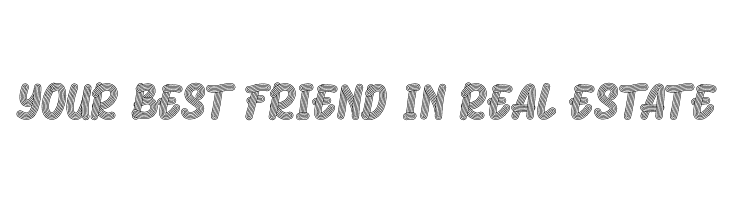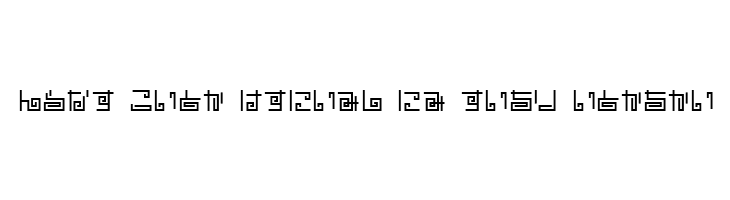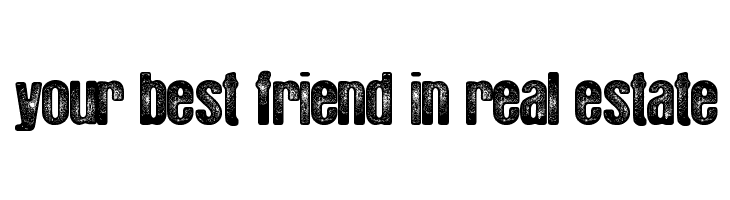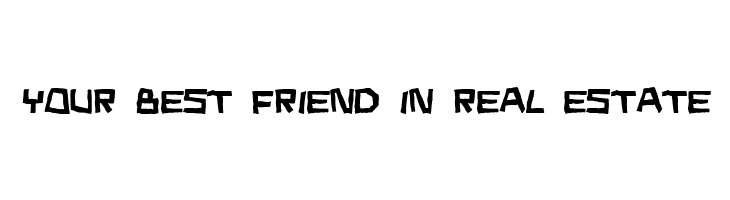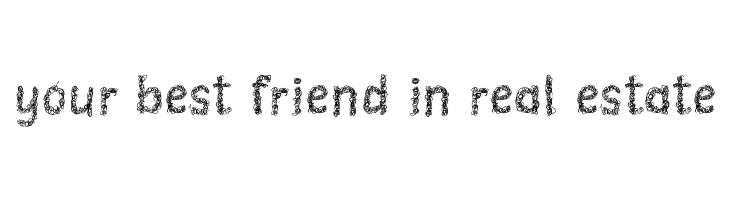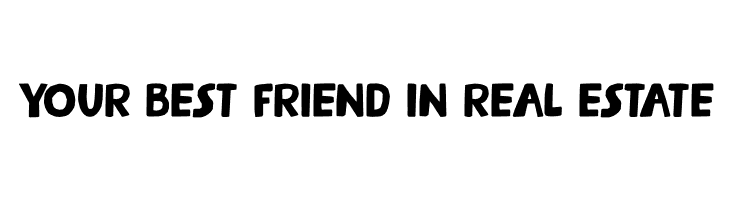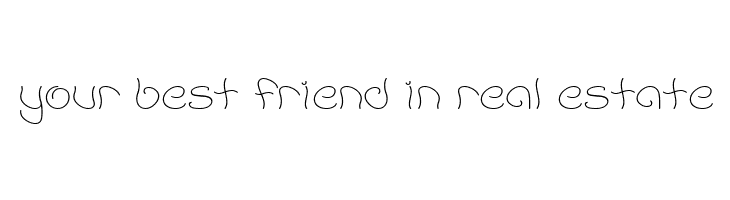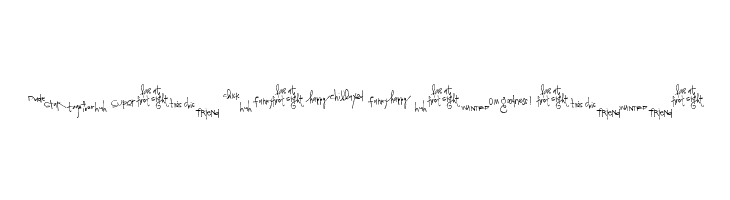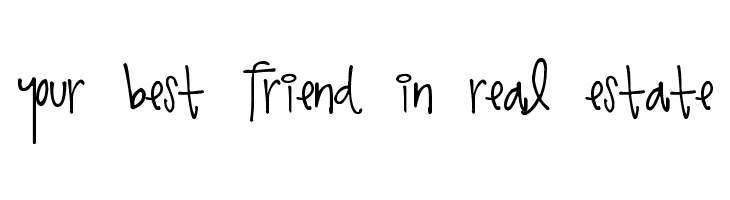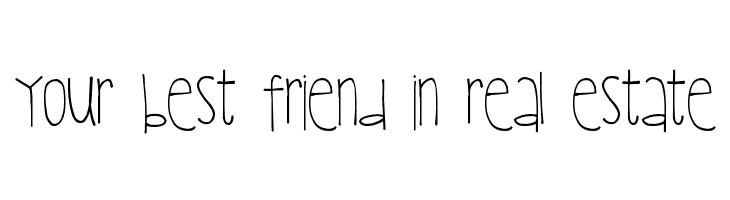
A playful, curly font with noodle-like strokes and a whimsical appearance.
A playful, noodle-inspired font with bold, intertwined strokes and a decorative style.
A geometric, maze-like font with a futuristic, digital aesthetic.
A playful, bold font with irregular, cartoonish shapes and a whimsical style.
A bold, hand-drawn font with a playful and artistic style.
A bold, playful font with a 3D shadow effect and cartoonish style.
A bold, cartoonish font with a 3D effect and playful style.
A playful, handwritten font with a youthful and whimsical style.
A playful, whimsical handwritten font with tall, narrow letters.
A decorative icon font with bold stars and Japanese-themed illustrations.
A playful, bold font with rounded edges and a slightly condensed style.
A playful, handwritten font with a whimsical and friendly style.
A modern, rounded sans-serif font with balanced spacing and clear readability.
A bold, hand-drawn font with a playful, graffiti-like style.
A bold, playful font with thick, rounded strokes and a whimsical style.
A whimsical, hand-drawn font with intricate loops and swirls.
A bold, distressed font with a vintage, textured appearance.
A playful, hand-drawn font with tall, narrow characters and a whimsical style.
A geometric, pixelated font with a digital, retro aesthetic.
A whimsical, curly font with playful loops and swirls.
A bold, playful font with rounded edges and a hand-drawn feel.
A playful, bold font with a hand-drawn, whimsical style and unique noodle bowl symbols.
A playful, wavy font with noodle-like curves and a whimsical style.
A playful, noodle-like font with a bold, curly design.